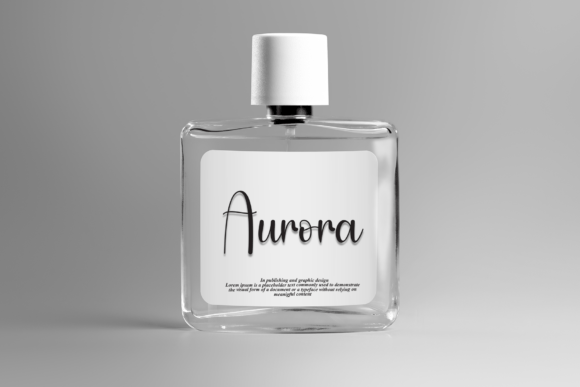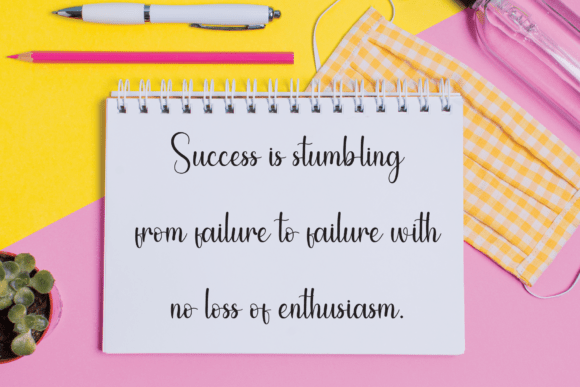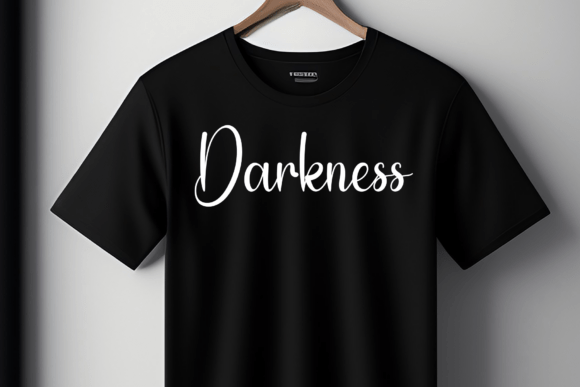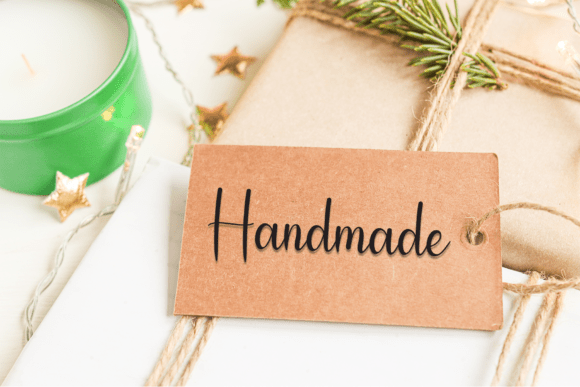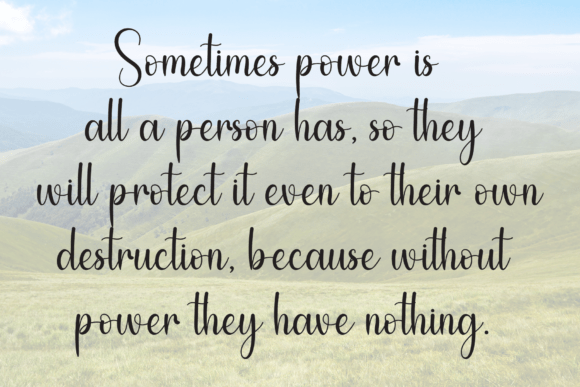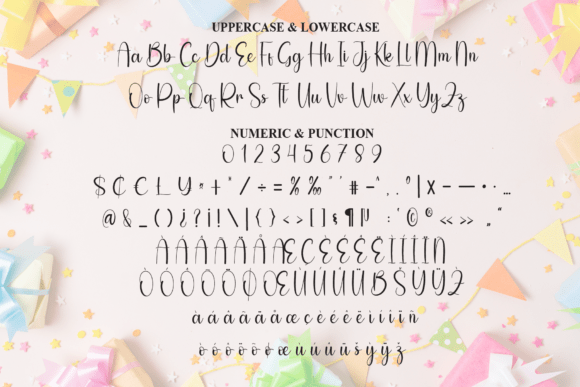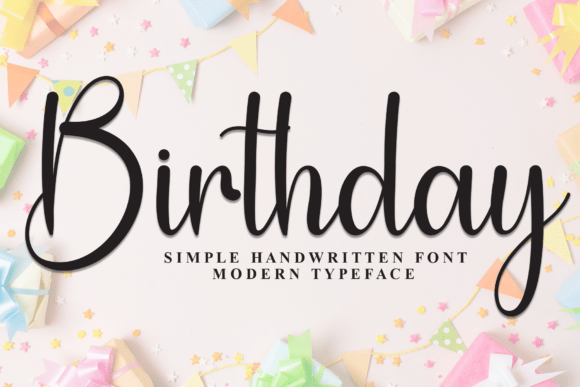
The Birth of Elegance: A Deep Dive into the Birthday Font
I’ll never forget the time I was working on a wedding invitation project, and my client asked for a font that was “elegant, yet playful.” I scoured the internet, tried countless fonts, but nothing seemed quite right. That was until I stumbled upon the Birthday font. Its fluid, graceful strokes immediately caught my attention, and I knew I had found the perfect fit. In this article, we’ll explore what makes the Birthday font so special, its uses, and how to make the most of its features.
Here’s what I love about the Birthday font:
• ✨ Elegant and charming: The Birthday font exudes sophistication and refinement, making it perfect for high-end branding, invitations, and stationery.
• ✅ Smooth curves and natural flow: The font’s fluid strokes create a timeless, refined look that’s sure to impress.
• 🎉 Versatile: From formal events to personal projects, the Birthday font adapts effortlessly to any design.
And, like any font, it’s not without its quirks:
• 🤔 Limited use in body text: While the Birthday font is stunning in headings and titles, it may not be the best choice for lengthy body text due to its script nature.
• ⚠️ Requires attention to spacing: To ensure optimal readability, be mindful of letter spacing, especially when using the font in smaller sizes.
The Story Behind the Font: Designer Inspiration
The Birthday font was designed with elegance and versatility in mind. Inspired by classic calligraphy and modern script fonts, its creator aimed to craft a font that would add a touch of sophistication to any design. Whether for a special occasion or everyday use, the Birthday font is sure to make a lasting impression.
What makes the Birthday font unique? The Birthday font’s fluid, graceful strokes and elegant charm set it apart from other script fonts.
Is the Birthday font suitable for body text? While beautiful, the Birthday font may not be the best choice for lengthy body text due to its script nature.